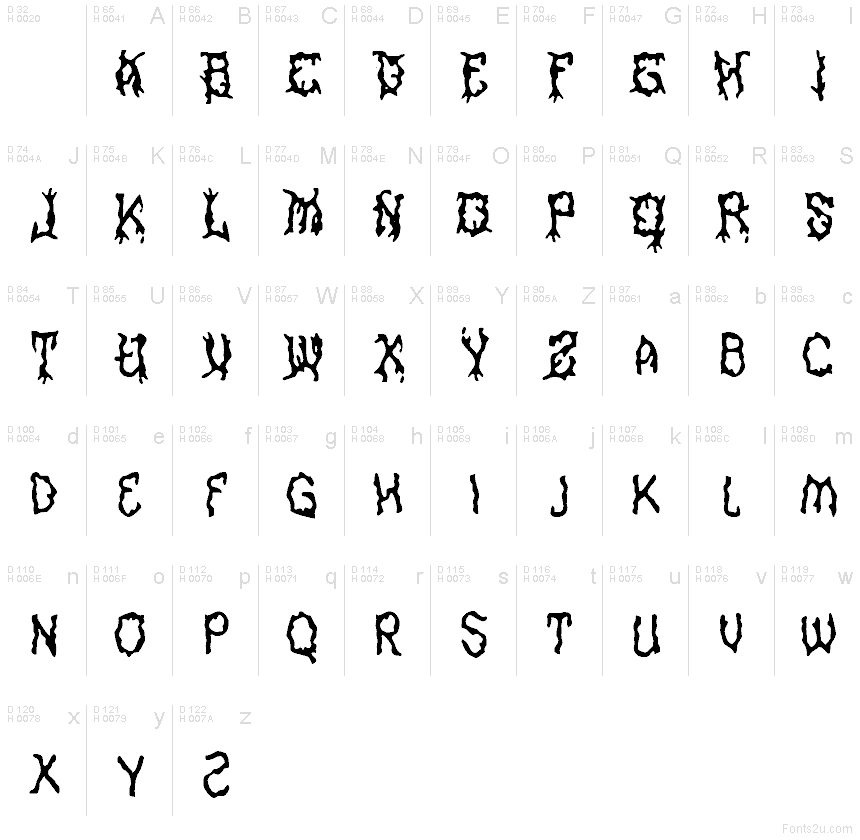
CSCrimeDrawn-Regular Demo
CS Crime Drawn font by Craft Supply Co. is a free bold scary display font in the CS Crime family, built around jittery, hand-scratched forms that look soaked in inky shadows. Letters swell and taper like drips, with torn edges and a restless rhythm that keeps the eye on alert. The rough, organic outlines feel tactile—almost damp—giving headlines a visceral jolt without sacrificing legibility at larger sizes.
Using CS Crime Drawn, your titles lunge off the page for Halloween posters, horror trailers, escape room branding, true-crime podcast covers, haunted house signage, and thriller book jackets. This free font’s loose spacing and irregular contours create suspenseful pacing that reads fast but feels unstable. Pair with a small, neutral sans for body copy to heighten contrast, and scale CS Crime Drawn large so the gritty contours and inky pockets really crawl into view.